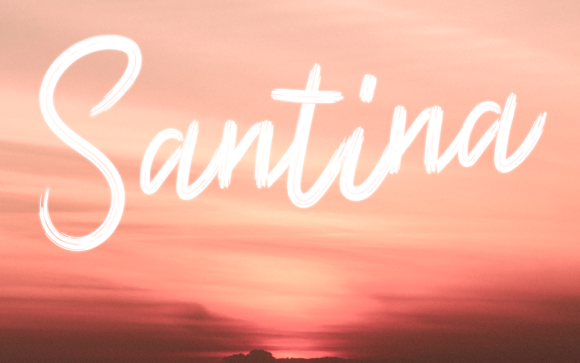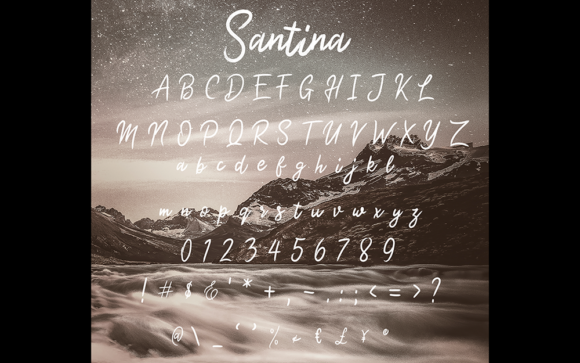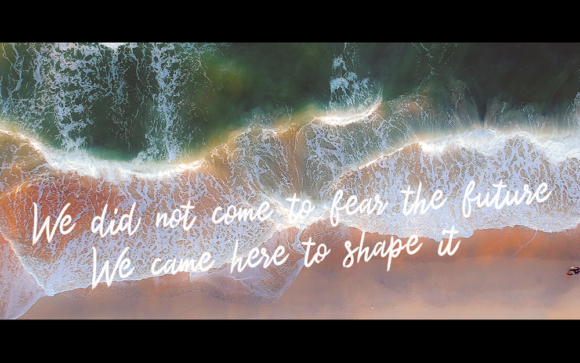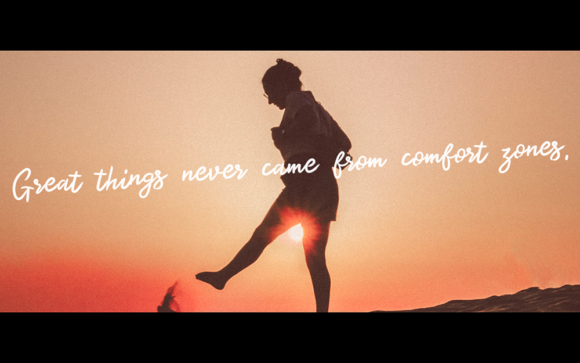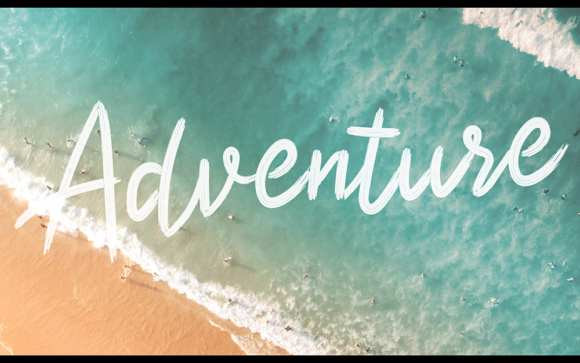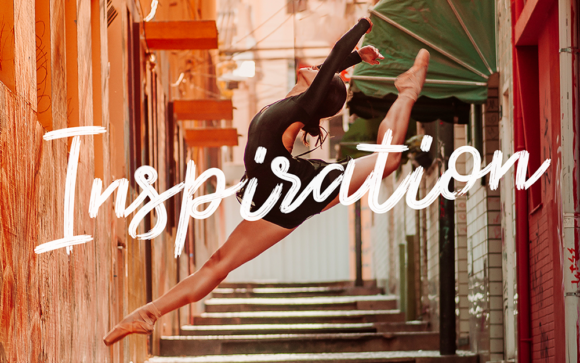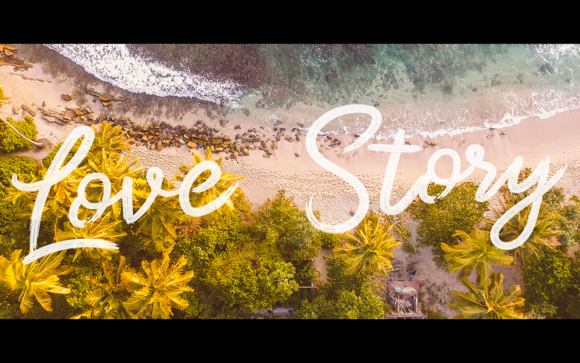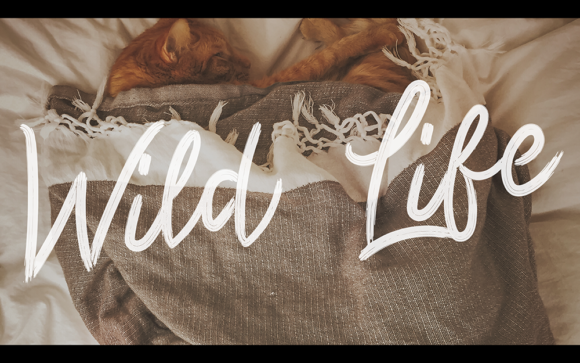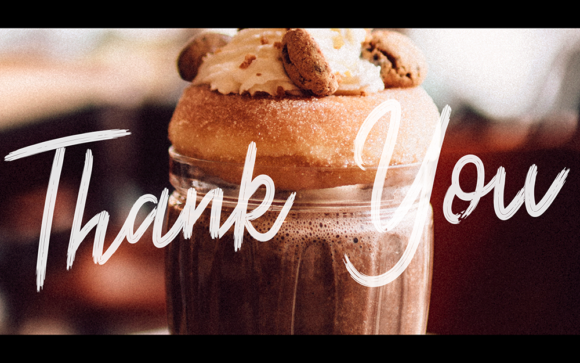
Santina Font
About Santina Font
The Santina is an amazing handwritten font. It can be used for social media covers, Instagram posts, labeling, clothing, books,album covers, poster, any printable project , and much more!